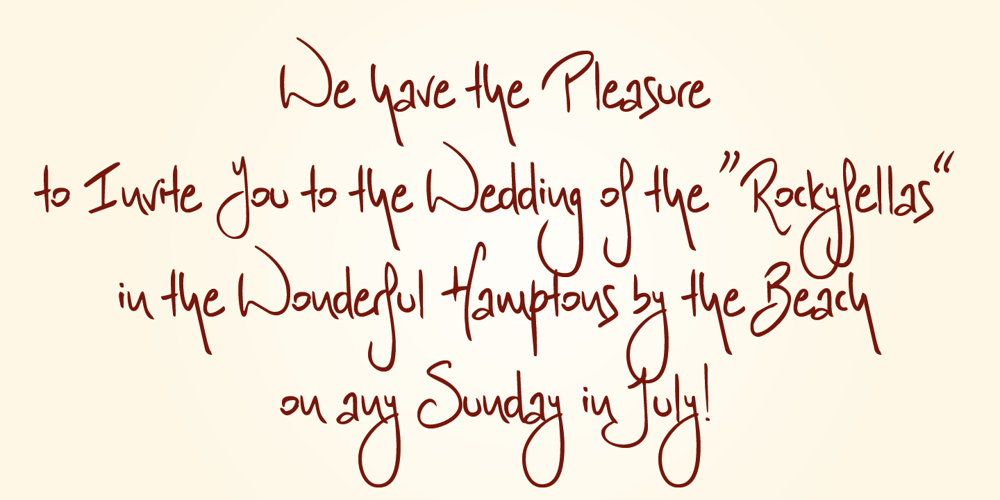
Vividangelo Font Family was designed by Gert Wiescher and published by Wiescher Design. Vividangelo contains 1 styles and family package options. Vividangelo is designed after the handwriting of a real person. I saw it on the pricetags in a small shop and convinced the person to have her handwriting converted into a font. She is very happy about it now, so am I.